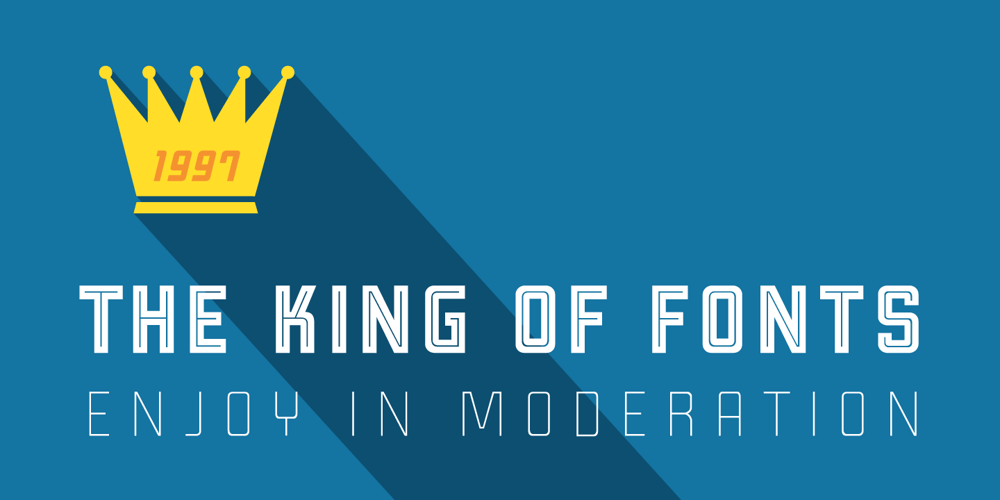
Liquorstore Font Family was designed by Chank Diesel and published by Chank. Liquorstore contains 7 styles and family package options. Inspired by hand-painted liquor store signage in Minneapolis, as well as constructivist propaganda posters and old magazine logos, Chank created Liquorstore as a simple yet elegant exercise in font creation based on basic geometric forms with subtle, humanist sensibilities. Works great for display usage for headlines, labels and prohibitive signage. A simple and versatile, must-have display poster font!